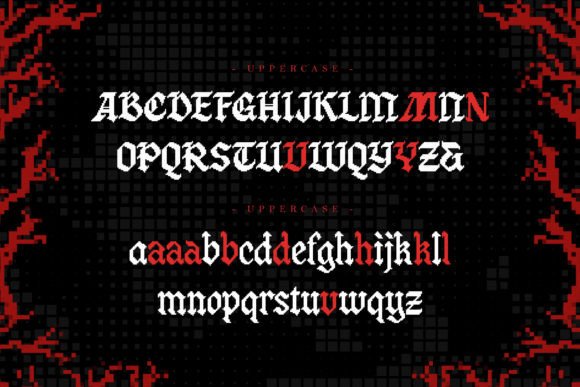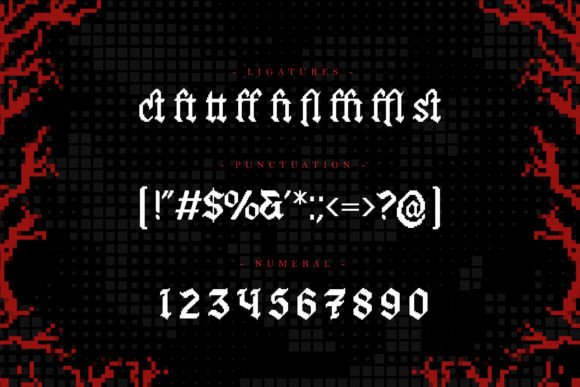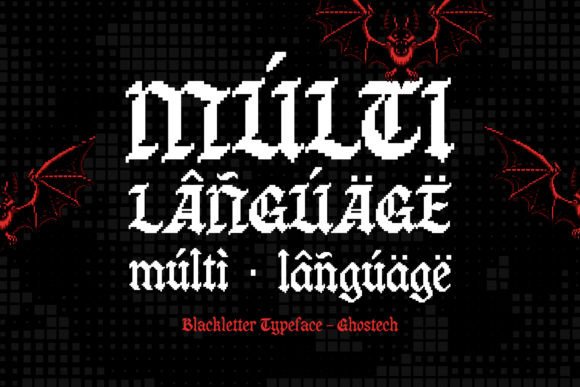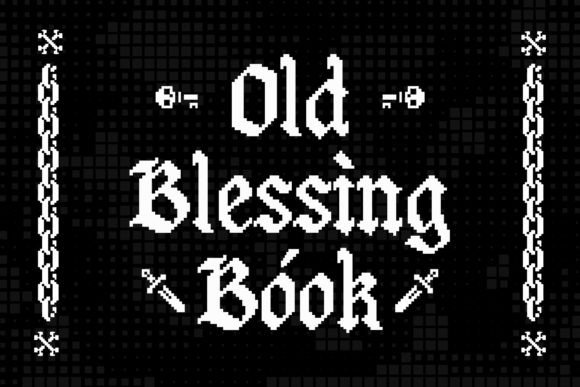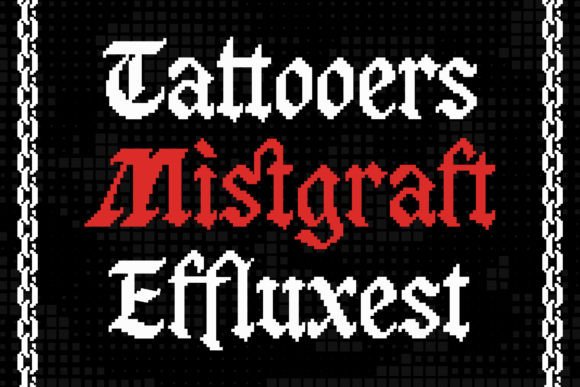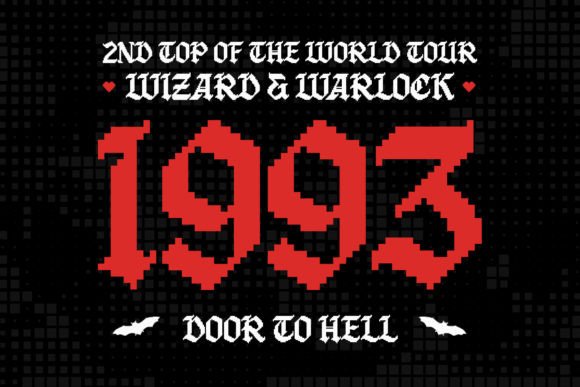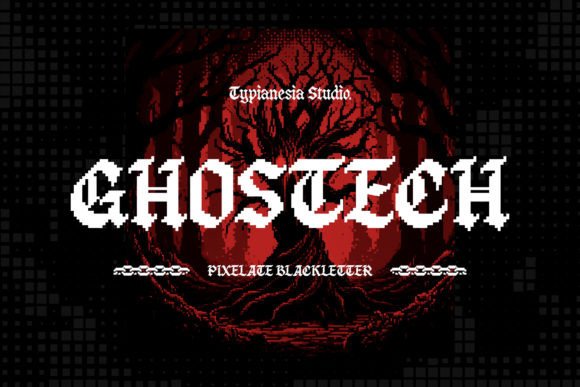
Introducing Ghostech Font: A Modern Twist on Classic Blackletter Typography
In the world of typography, few fonts manage to strike a balance between classic elegance and modern flair. Ghostech Font, however, achieves this delicate balance with ease. This pixelate blackletter font merges the timeless aesthetic of traditional blackletter typefaces with a contemporary pixelated design, creating a unique visual identity that’s both nostalgic and cutting-edge.
The Genesis of Ghostech
Ghostech’s design is rooted in the rich history of blackletter typography, which dates back to the Middle Ages. Blackletter fonts, characterized by their dramatic flourishes and Gothic-inspired letterforms, have long been associated with luxury, sophistication, and elegance. However, Ghostech’s creators sought to breathe new life into this classic style by infusing it with a modern pixelated aesthetic.
The result is a font that not only pays homage to its historical roots but also boldly steps into the digital age. Ghostech’s pixelated design gives it a distinctive edge, making it perfect for use in digital media, such as video games, mobile apps, and websites. At the same time, its classic blackletter undertones ensure that it remains suitable for more traditional applications, like print media, branding, and signage.
Design and Features
Ghostech’s design is characterized by its striking contrast between the bold, sweeping lines of traditional blackletter typography and the precise, grid-based aesthetic of pixel art. This fusion creates a visually stunning effect that’s both eye-catching and memorable. The font’s pixelated design also allows for excellent legibility, even at smaller sizes, making it an excellent choice for body text and headlines alike.
One of Ghostech’s key features is its versatility. The font comes in a range of weights and styles, allowing designers to choose the perfect variation for their project. Whether you’re creating a bold, attention-grabbing headline or a more subtle, supporting text, Ghostech has a style to suit your needs.
Applications and Use Cases
Ghostech’s unique blend of classic and modern elements makes it an incredibly versatile font, suitable for a wide range of applications. Here are just a few examples of how you can use Ghostech to elevate your designs:
• Digital Media: Ghostech’s pixelated design makes it a natural fit for digital media, such as video games, mobile apps, and websites. Its distinctive style adds a touch of nostalgia and sophistication to any digital project.
• Print Media: Despite its digital leanings, Ghostech is equally at home in print. Use it for posters, flyers, brochures, or any other printed material that needs a bold, eye-catching headline.
• Branding and Signage: Ghostech’s unique style makes it an excellent choice for branding and signage projects. Its distinctive aesthetic helps to create a memorable visual identity that will set your brand apart from the competition.
• Gaming Projects: Ghostech’s pixelated design and classic blackletter undertones make it a perfect fit for gaming projects, such as game titles, logos, and in-game text.
Why Choose Ghostech?
So why choose Ghostech over other fonts? Here are just a few compelling reasons:
• Unique Style: Ghostech’s fusion of classic blackletter typography and modern pixel art creates a truly unique visual identity that’s sure to turn heads.
• Versatility: Ghostech’s range of weights and styles makes it suitable for a wide range of applications, from digital media to print and branding.
• Legibility: Ghostech’s pixelated design ensures excellent legibility, even at smaller sizes, making it perfect for body text and headlines alike.
• Nostalgia and Sophistication: Ghostech’s distinctive style adds a touch of nostalgia and sophistication to any design, making it perfect for projects that need a bit of extra flair.
In conclusion, Ghostech Font is a game-changing addition to any designer’s toolkit. Its unique fusion of classic blackletter typography and modern pixel art creates a visually stunning effect that’s both nostalgic and cutting-edge. With its versatility, legibility, and distinctive style, Ghostech is the perfect choice for designers and crafters looking to elevate their designs and create a lasting impression.